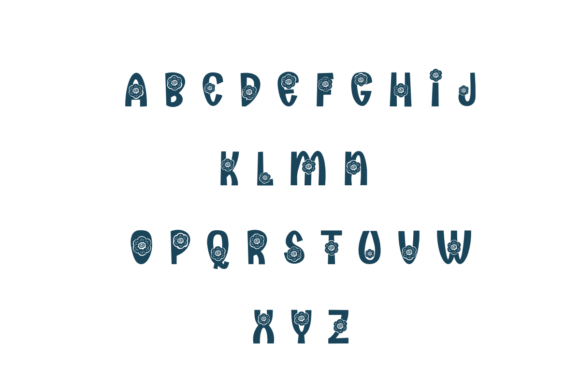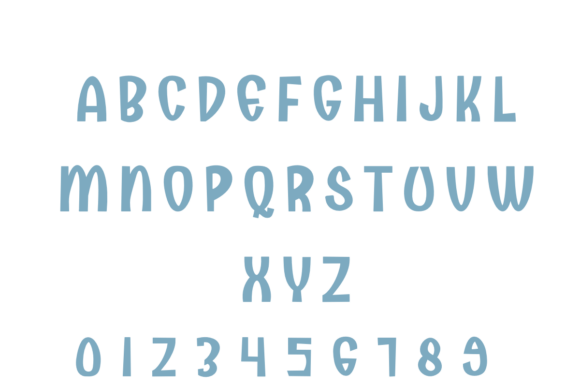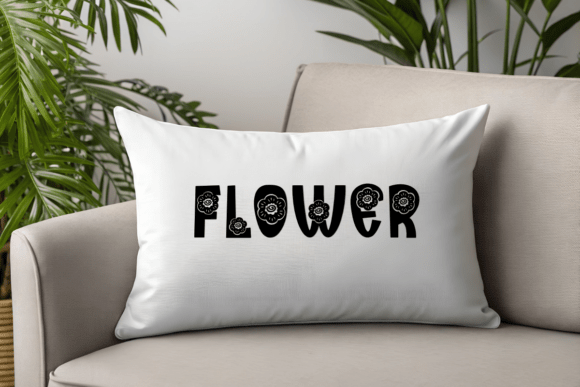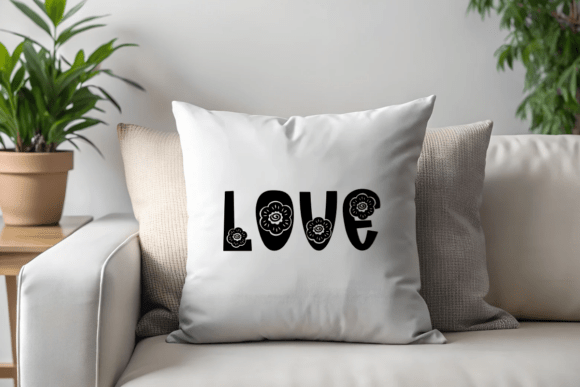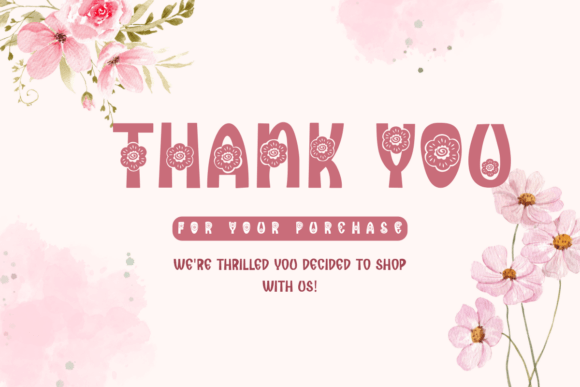
Introducing Boho Flowers Font: The Ultimate Decorative Font for Creative Projects
Are you a designer, crafter, or DIY enthusiast looking for a unique and stylish font to elevate your creative projects? Look no further than Boho Flowers Font, a beautiful decorative font that’s perfect for adding a touch of bohemian charm to your designs.
What is Boho Flowers Font?
Boho Flowers Font is a stunning decorative font that’s inspired by the free-spirited and eclectic bohemian style. This font features intricate floral designs and patterns that will add a touch of whimsy and romance to your projects. With its delicate and feminine charm, Boho Flowers Font is ideal for a wide range of creative applications, from crafting and scrapbooking to graphic design and digital art.
Uses for Boho Flowers Font
Boho Flowers Font is an incredibly versatile font that can be used for a variety of creative projects, including:
- Taking notes and writing in a diary: Add a touch of elegance and sophistication to your journaling with Boho Flowers Font.
- Creating greeting cards: Make your cards stand out with this beautiful font, perfect for birthdays, weddings, and other special occasions.
- Designing banners and signs: Use Boho Flowers Font to create eye-catching banners and signs for parties, events, and promotions.
- Customizing mugs and ceramics: Add a personal touch to your mugs, tumblers, and ceramics with this lovely font.
- Creating social media posts: Elevate your social media posts with Boho Flowers Font, perfect for Instagram, Facebook, and Pinterest.
- Designing stationery and paper goods: Use Boho Flowers Font to create beautiful stationery, notebooks, and paper crafts.
- Customizing shirts and apparel: Add a touch of bohemian style to your shirts, tote bags, and other apparel with this unique font.
Why Choose Boho Flowers Font?
So why choose Boho Flowers Font for your creative projects? Here are just a few reasons:
- Unique and eye-catching: Boho Flowers Font is a one-of-a-kind font that’s sure to grab attention and make your projects stand out.
- Versatile: This font can be used for a wide range of creative applications, from digital art to crafting and scrapbooking.
- Elegant and sophisticated: Boho Flowers Font adds a touch of elegance and sophistication to any project, making it perfect for special occasions and events.
Tips for Using Boho Flowers Font
Here are a few tips for getting the most out of Boho Flowers Font:
- Experiment with different colors: Boho Flowers Font looks beautiful in a variety of colors, so don’t be afraid to experiment and find the perfect hue for your project.
- Mix and match with other fonts: Combine Boho Flowers Font with other fonts to create a unique and eye-catching design.
- Use it sparingly: Boho Flowers Font is a bold and eye-catching font, so use it sparingly to avoid overwhelming your design.